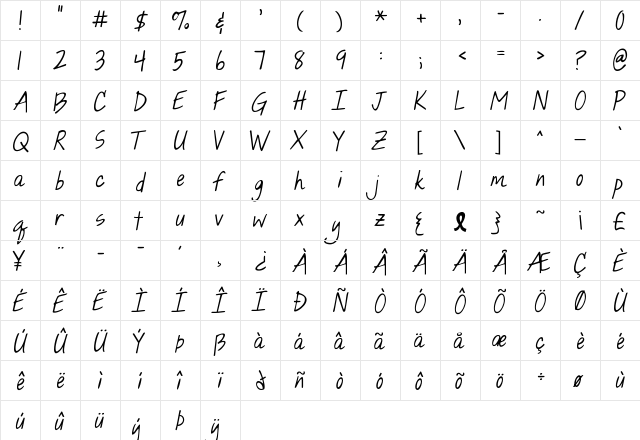
KG Hope For A Cure Regular
| Foundry | Kimberly Geswein |
| Designer | Kimberly Geswein |
Design Context for KG Hope For A Cure Typeface
KG Hope For A Cure takes a measured approach to typography — its balanced proportions and neutral character make it a reliable workhorse for both digital and print work.